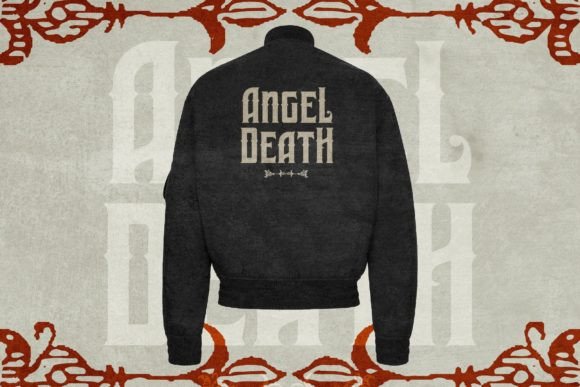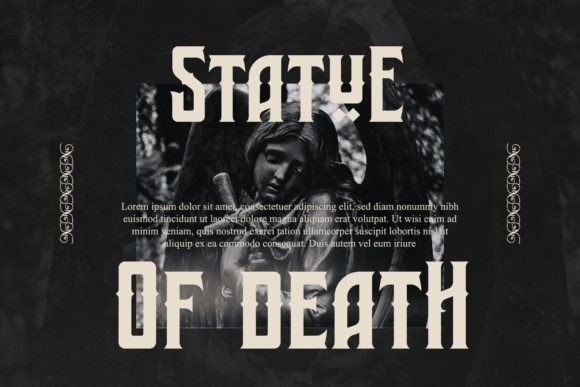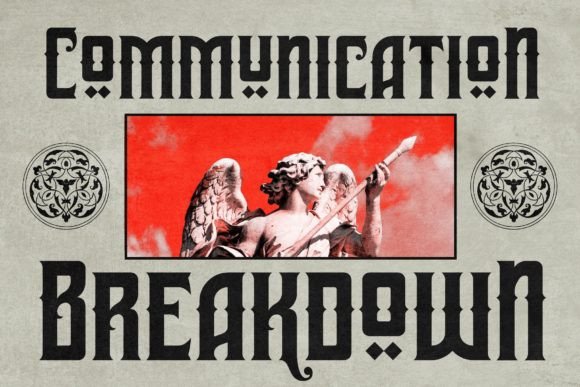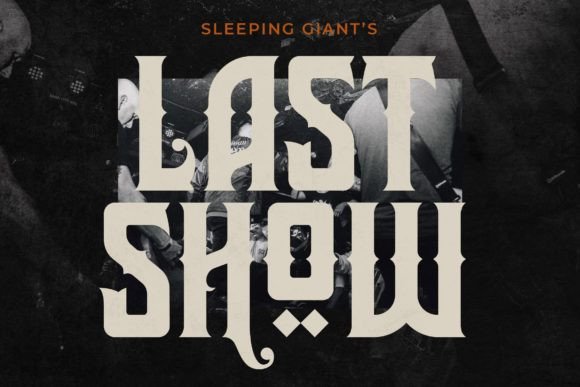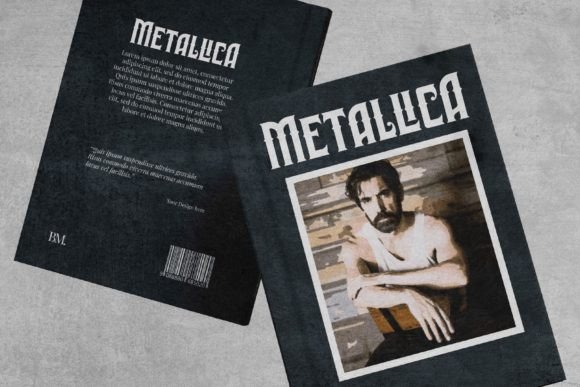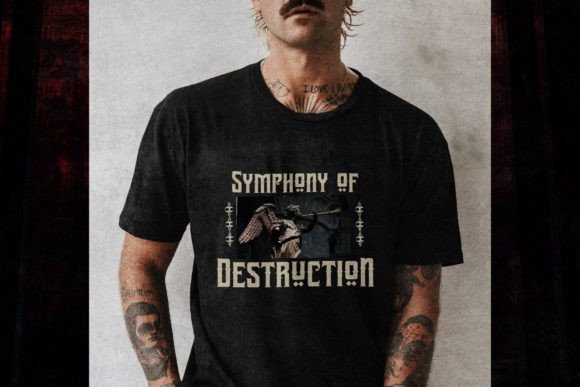
Introduction to Ramelik Font Font
Fonts play a crucial role in design, and the Ramelik Font font is a typeface that brings both character and versatility to any project. Whether you’re working on a branding project, a website, or a print design, the Ramelik Font font offers a unique style that can elevate your work.
Proudly present Ramelik, a modern and classy blackletter font that has a unique style and modern look.
This typeface is perfect for an elegant & luxury logo, book or movie title design, fashion brand, magazine, clothes, lettering, quotes, and so much more .
The Ramelik Font font is more than just a typeface – it’s a design tool that helps you communicate your message with style and clarity. Its unique character set and versatile design make it suitable for a wide range of applications, from elegant invitations to bold headlines.
With its carefully crafted letterforms and balanced proportions, the Ramelik Font font ensures readability and visual appeal across all mediums.
The Ramelik Font font stands out with its unique design, exceptional readability, and versatility across various design applications.